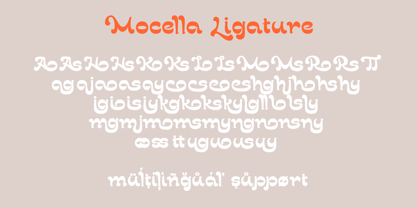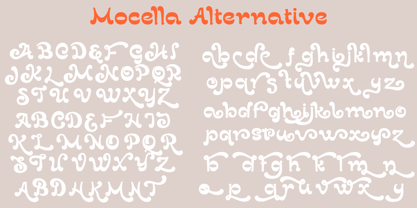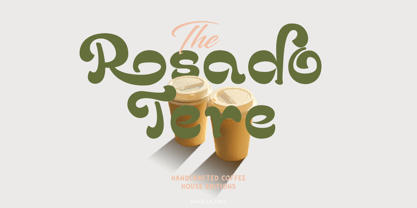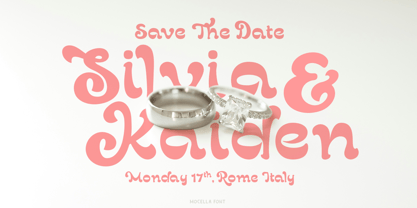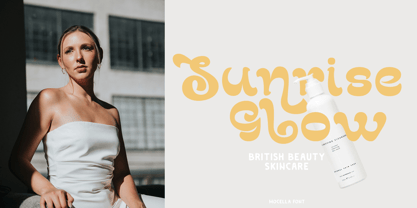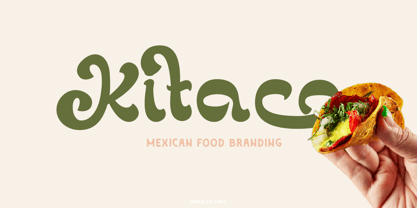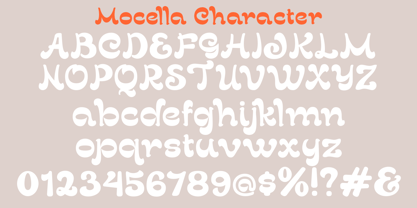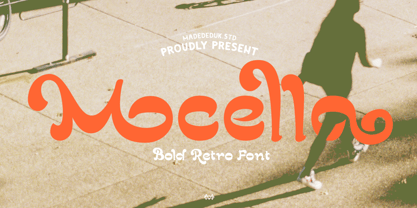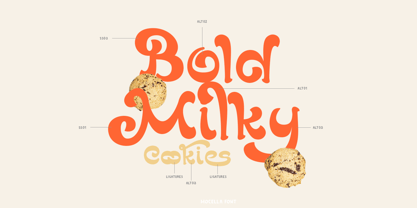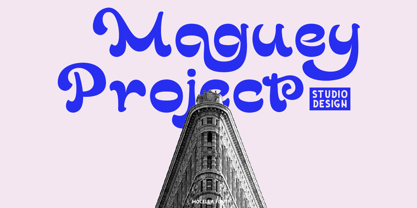
Mocella
by madeDeduk
The Mocella Font Family was designed by madededuk and published by madeDeduk. Mocella contains 1 styles. More about this family
Mocella is a retro font with 80's style. Classic and refined you can explore and combine creating rhythm for comfortable reading. This font perfect for any projects, such logotype, stickers, greeting / wedding cards, packaging design, headlines, brand identity, t-shirt, posters, magazines, books, Instagram, websites, and many more.